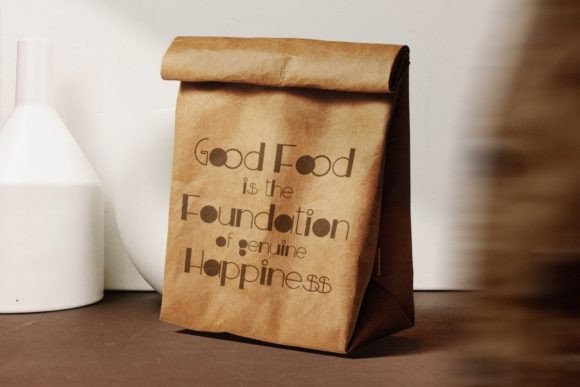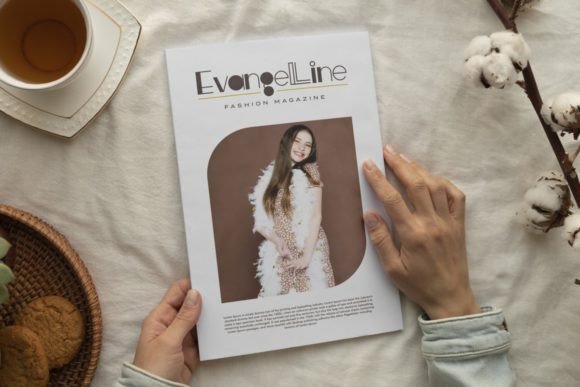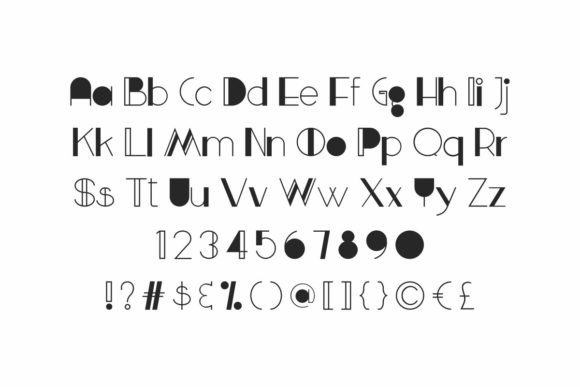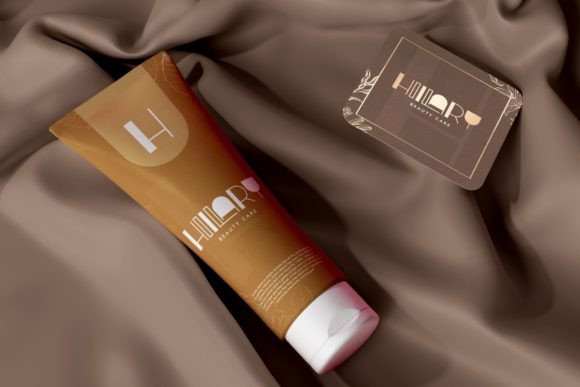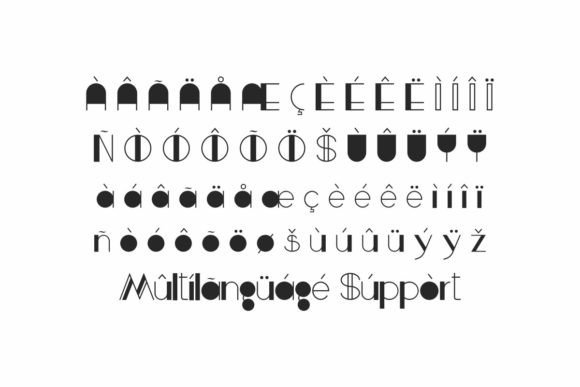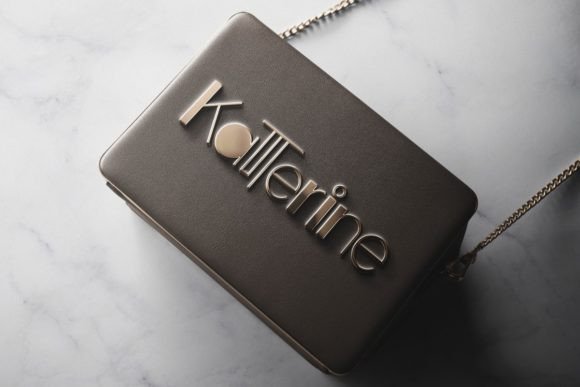
Unleash Your Creativity with Black Rollaway Font
Have you ever stared at a blank page, waiting for the perfect idea to strike? Maybe you’re browsing through a vintage store, and suddenly, the nostalgic feel of a bygone era sparks your creativity. For designers, those moments of inspiration can be the key to unlocking a unique visual identity. One such moment of inspiration led to the creation of the Black Rollaway Font, a display font that embodies the spirit of retro vibes.
The Black Rollaway Font is a masterful blend of modern design and vintage charm, featuring character letters with thin lines and bold black fills. This font is not just a pretty face; it’s a versatile tool that can elevate your designs across various industries, from boutiques and cosmetics to event organizers and fashion brands. Whether you’re looking to add a touch of sophistication or playfulness to your designs, the Black Rollaway Font is sure to impress.
Key Features of Black Rollaway Font
- Font Family: Black Rollaway Font is a sans-serif font family.
- Unique Characteristics: Black Rollaway Font features a bold, modern design with a unique rollaway effect, making it ideal for use in headlines and titles.
- Font Styles: Includes regular, bold, italic, and bold italic font styles.
Black Rollaway Font Review
Overall, I think the Black Rollaway Font is a decent addition to any design project. Here are some things that work well:
- ✨ Unique aesthetic: The font’s bold, sans-serif design gives it a modern and edgy feel.
- ✨ Legibility: Despite its boldness, the font is still easy to read, making it suitable for body text.
- ✨ Versatility: The font works well in both digital and print formats.
- ⚠️ Limited expressiveness: The font’s bold design can make it feel a bit one-dimensional, limiting its ability to convey emotion.
- ⚠️ Overuse: The font’s modern aesthetic can quickly become cliché, making it overused and tired-looking.
Overall, I think the Black Rollaway Font is a solid choice for designs that need a bold, modern look. While it may not be the most expressive font, it gets the job done. Just be mindful of overusing it, and consider pairing it with other fonts to add some variety.
Tips for Getting the Most Out of the Black Rollaway Font
To get the most out of the Black Rollaway font, try the following:
- Pair it with a bold font for maximum contrast.
- Use it for headings and titles to create a clean and modern look.
The Black Rollaway
Alternatives to Black Rollaway Font
Playfair Display is an elegant, high-end serif font suitable for luxury branding, high-end fashion, and sophisticated designs. It features intricate details and luxurious feel, making it a great alternative to Black Rollaway Font for designers who want to add a touch of sophistication to their work.
Comparison: While Black Rollaway Font is more modern and edgy, Playfair Display is more traditional and luxurious. Playfair Display is better suited for high-end branding and luxury designs, whereas Black Rollaway Font is more versatile and can be used in a wide range of designs.
Great Vibes is a modern script font that conveys a sense of elegance and sophistication. It’s perfect for designers who want to add a touch of whimsy and romance to their work. Great Vibes is great for invitations, wedding designs, and other creative projects.
Comparison: Great Vibes is more cursive and flowing than Black Rollaway Font, which is more geometric and modern. Great Vibes is better suited for creative and romantic designs, whereas Black Rollaway Font is more versatile and can be used in a wide range of designs.